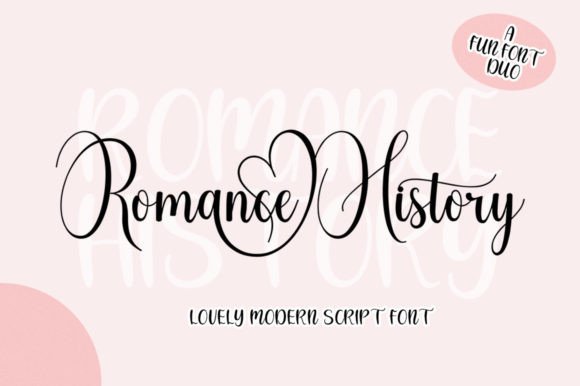
Welcome to the world of Romance History - the best font for lettering! Developed by HKL Studio, Romance History is a stunning font duo that combines the elegance of modern sans serif with the beauty of handwritten script. With its luxurious and captivating style, this font is sure to take your design projects to the next level.
Whether you're looking to create wedding cards, business cards, logos, or any other type of printed materials, Romance History is the perfect font for you. Its versatility makes it ideal for any purpose, whether you're designing greeting cards or package designs, brand identities, craft designs, DIY projects, book titles, wedding fonts, vintage pop designs, retro designs, or any other art/design projects.
Romance History's modern sans serif font is the epitome of luxury and sophistication, while the handwritten script font adds a touch of elegance and charm. Together, they create a font duo that is not only visually appealing but also highly functional. With Romance History, you have the flexibility to mix and match the fonts to suit your design needs, whether you want to create a bold and modern look or a soft and romantic feel.
The creators of Romance History have poured their hearts and souls into developing a font that not only looks beautiful but also works flawlessly. With its clean lines, sharp edges, and fluid strokes, this font duo is easy to read and will enhance the readability of your text.